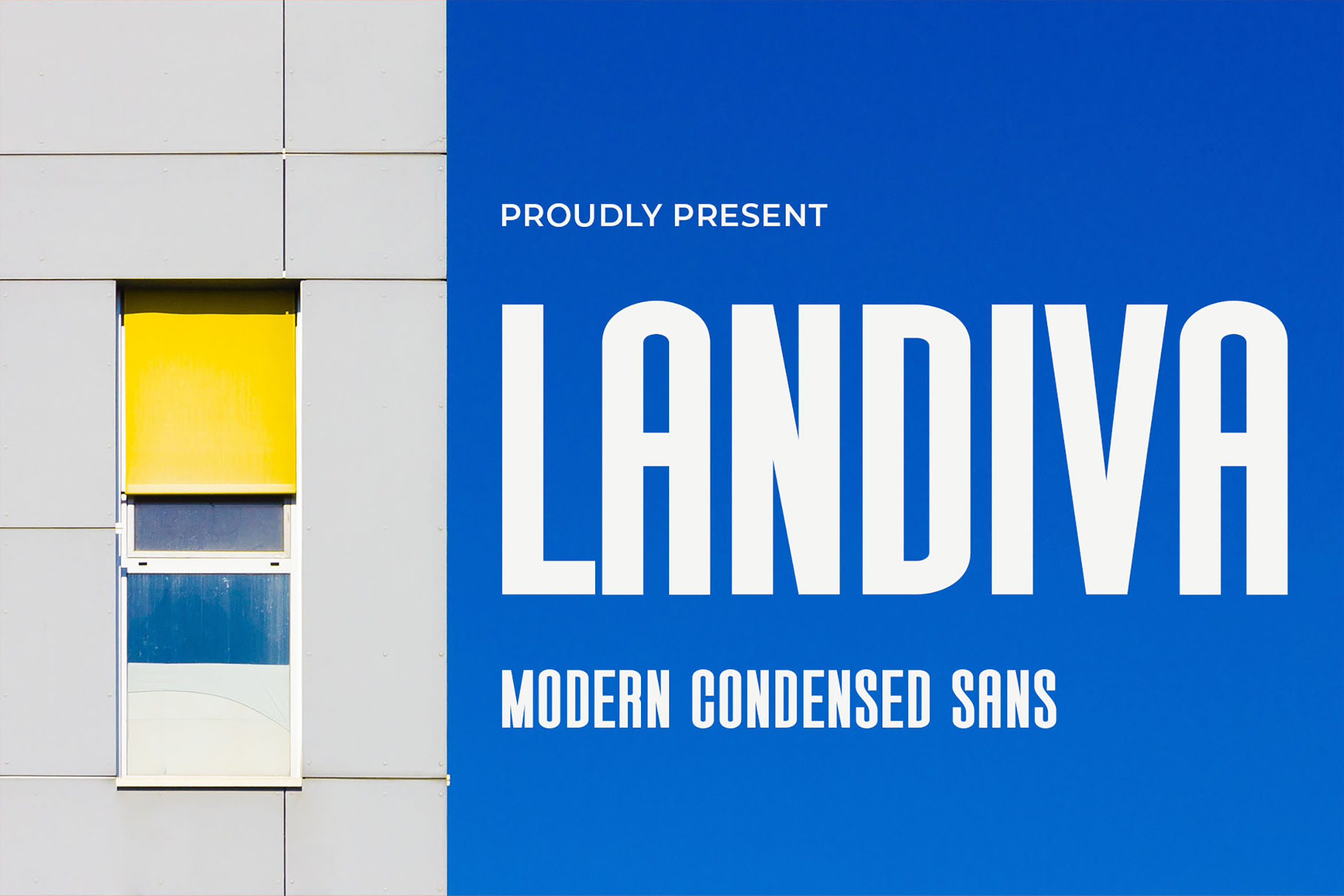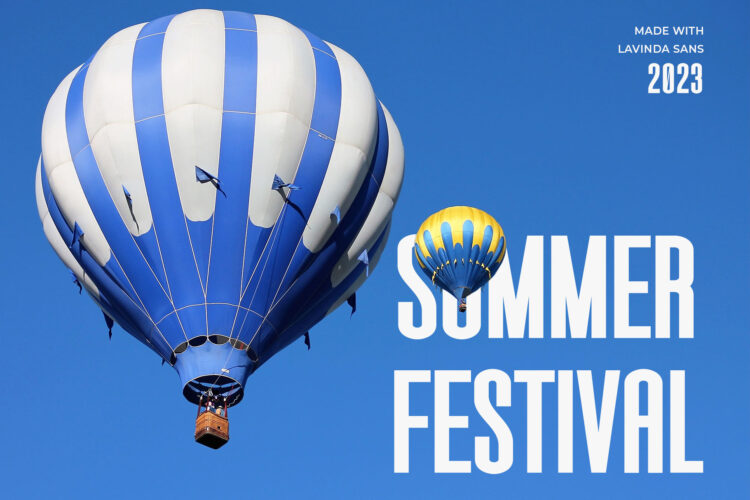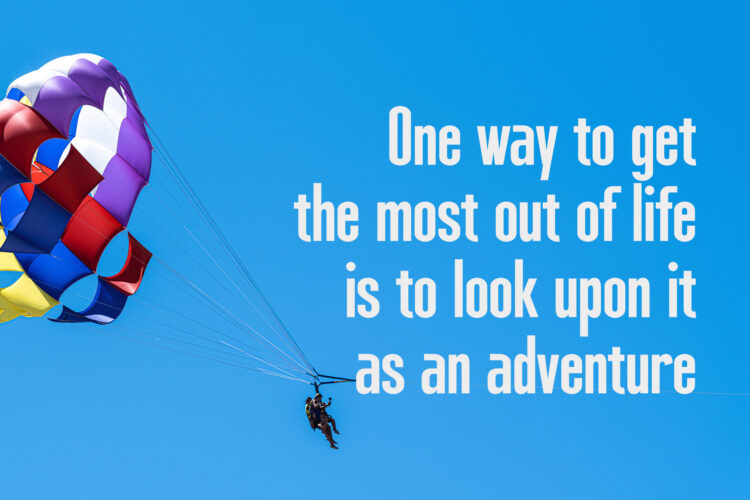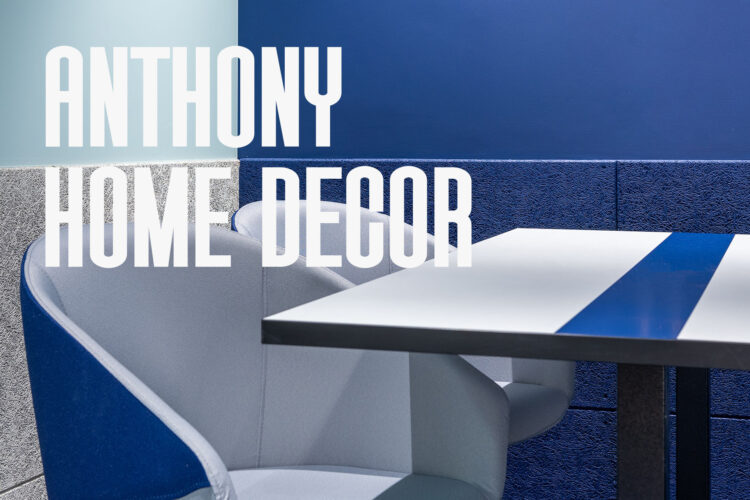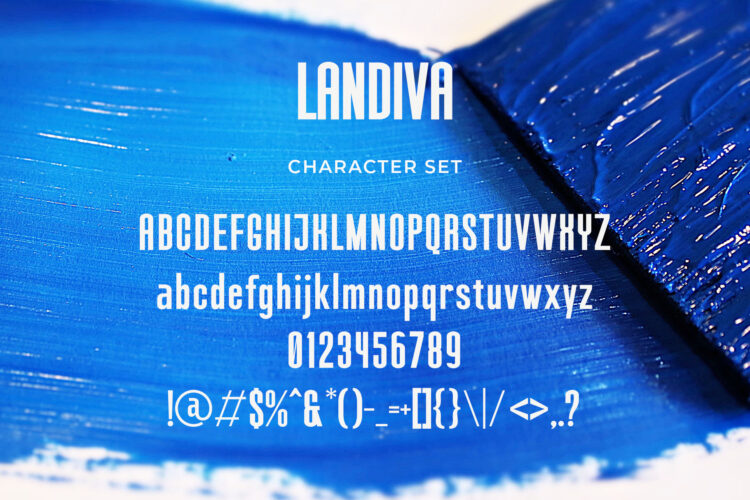
Introducing our new Landiva, modern sans serif font with elegant style this is perfect for branding, logos, invitation, magazines, product packaging and more.
Landiva - Modern Condensed Sans